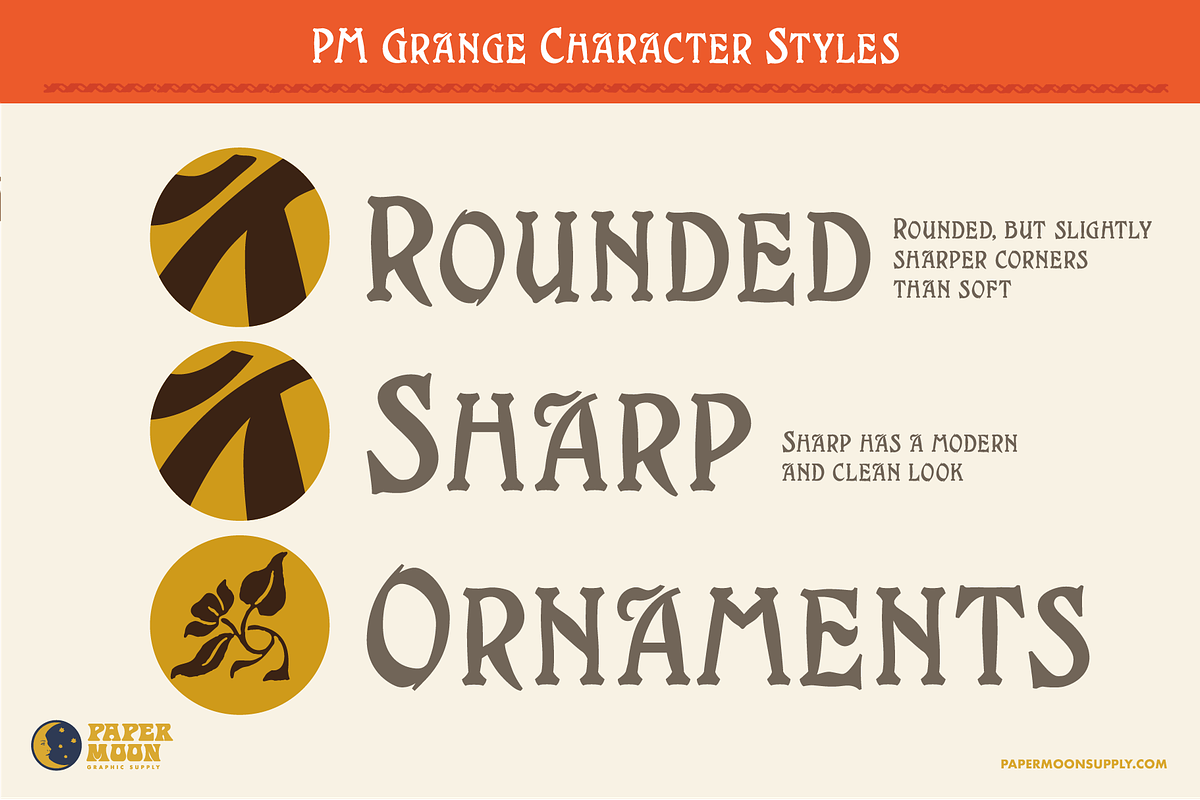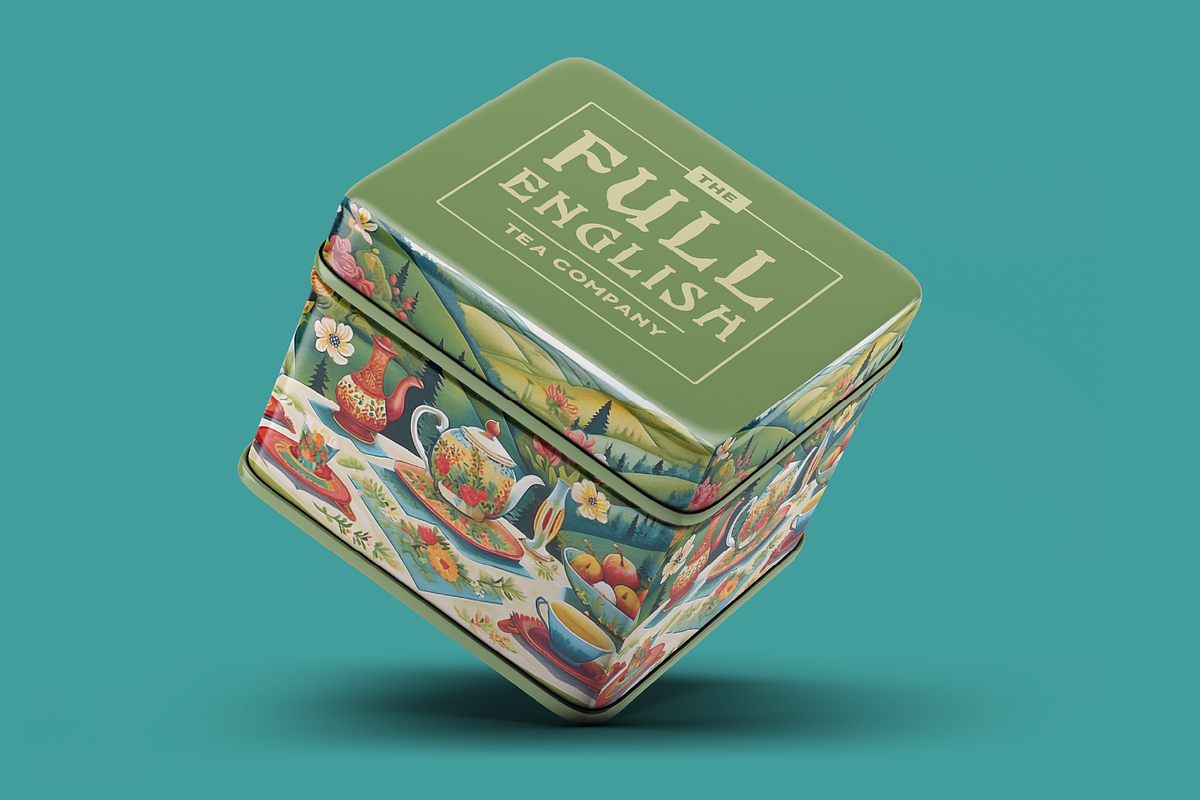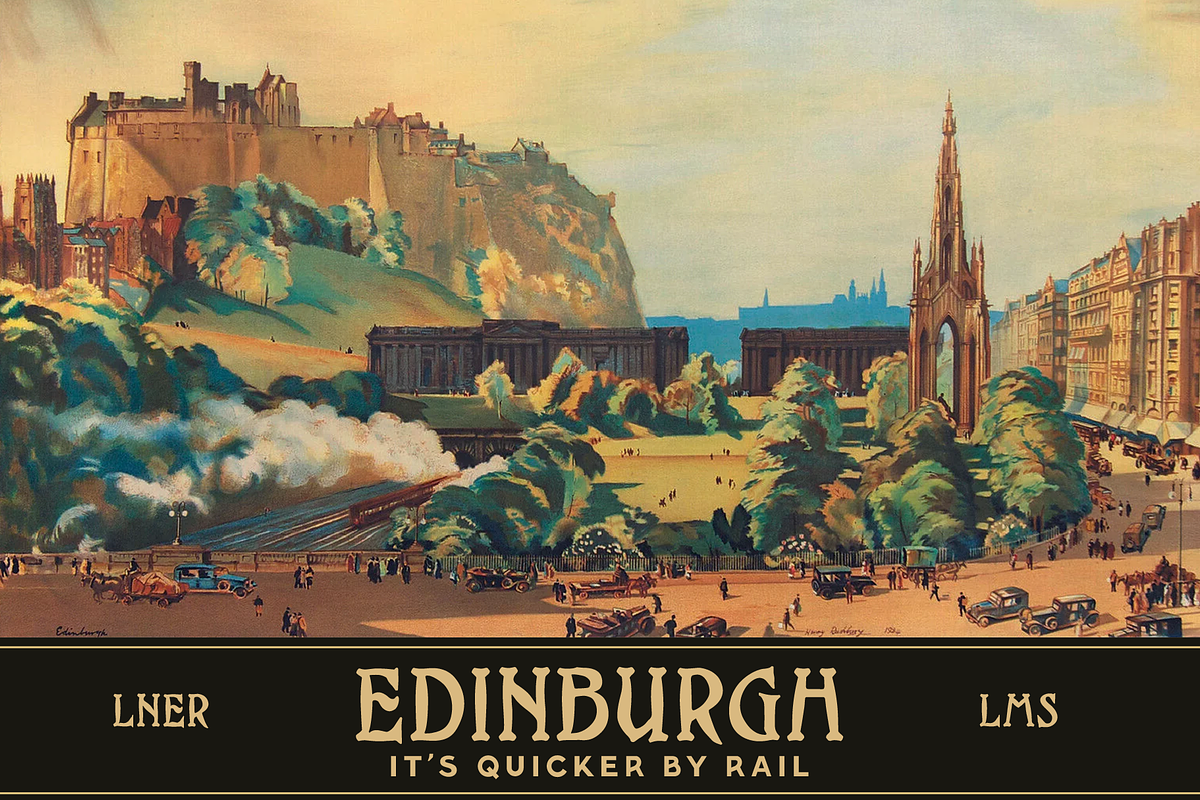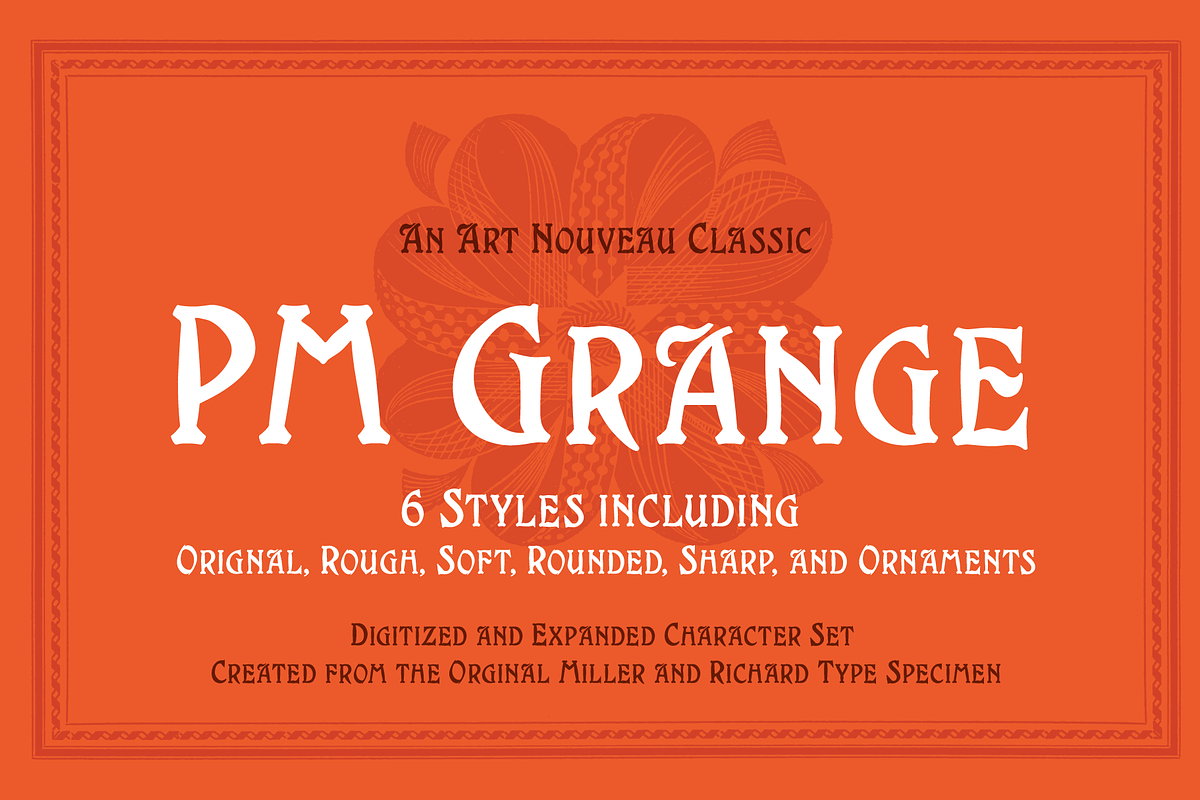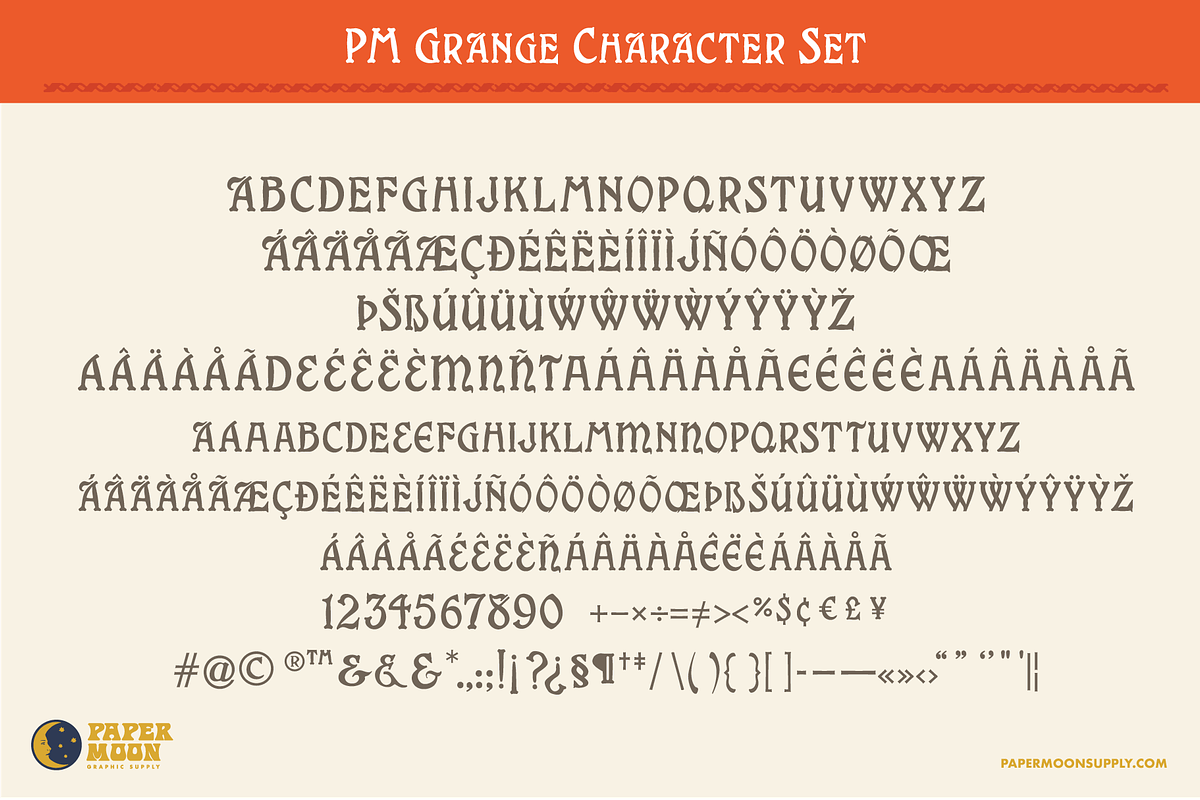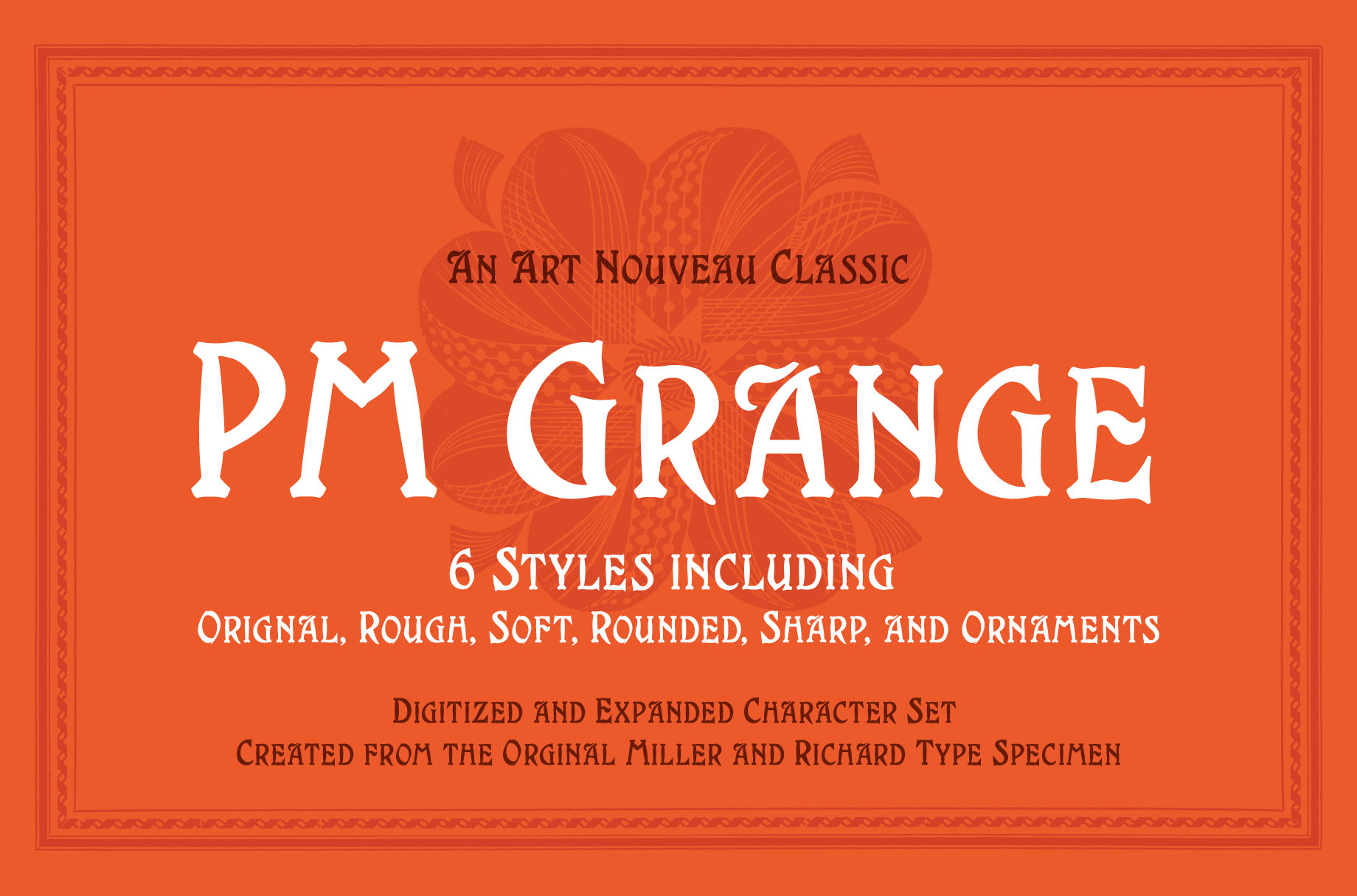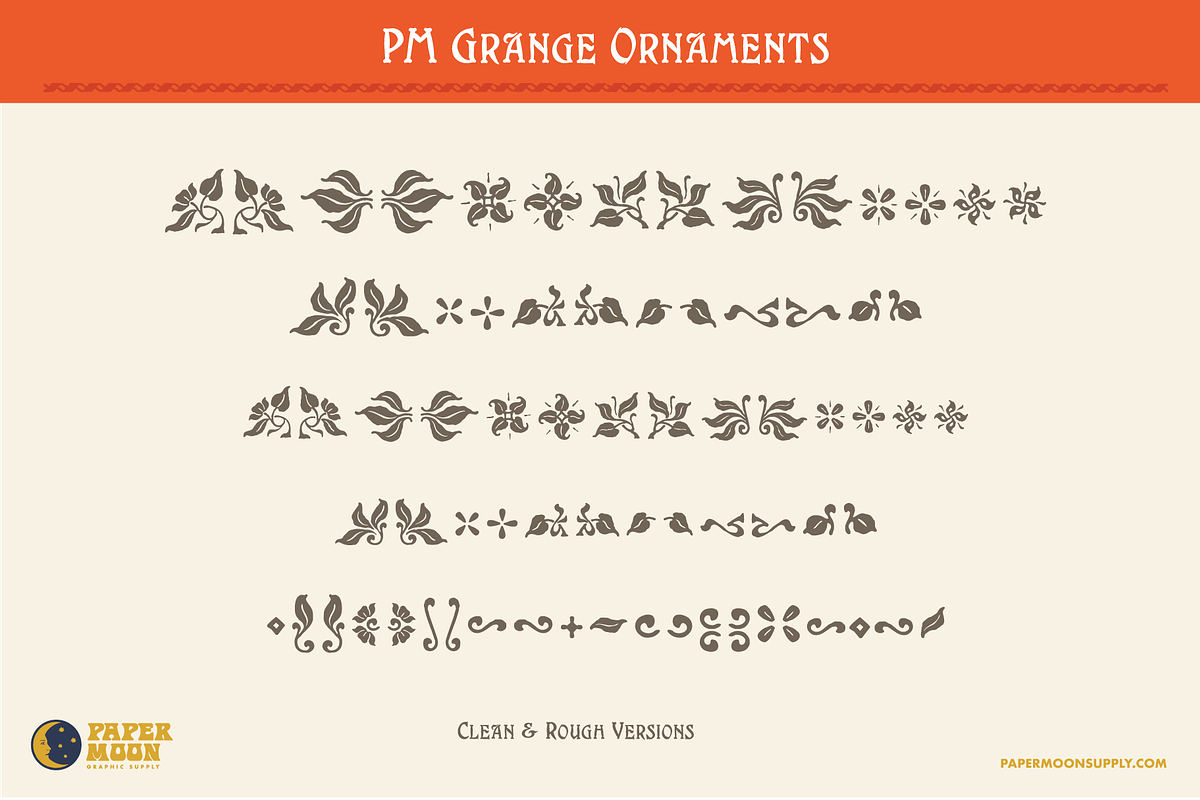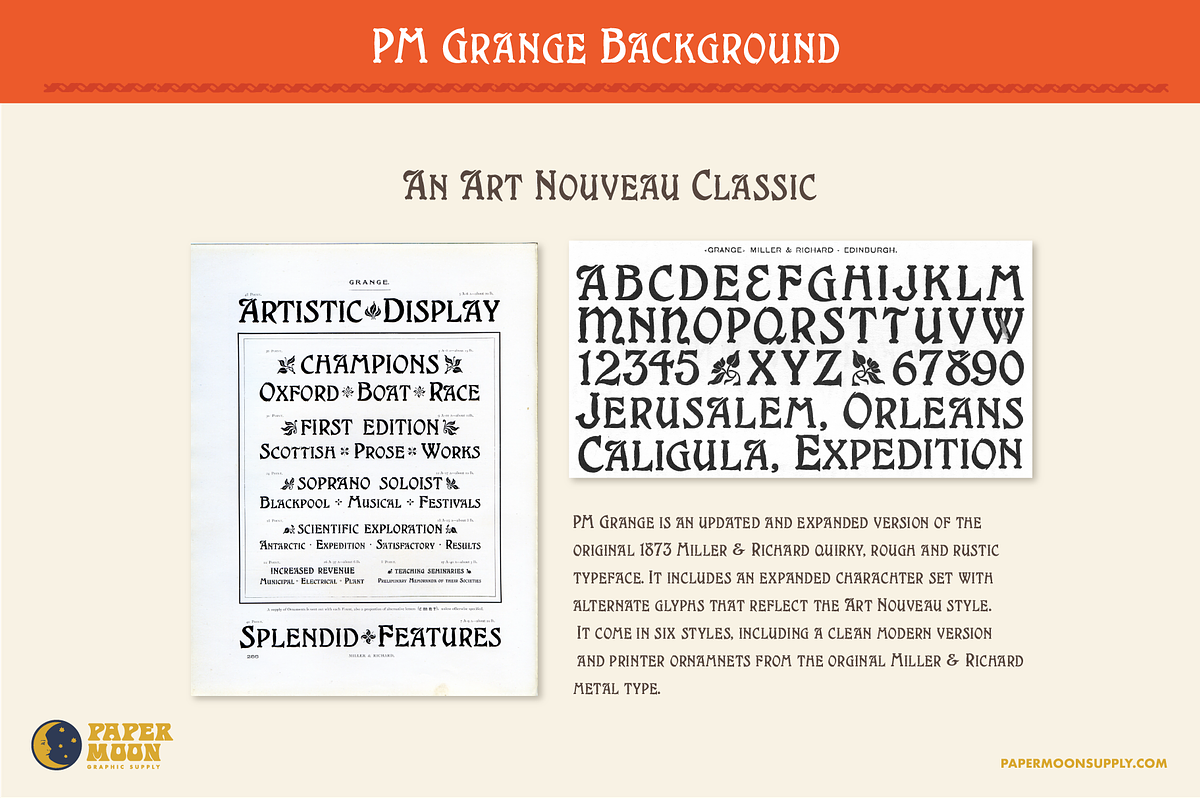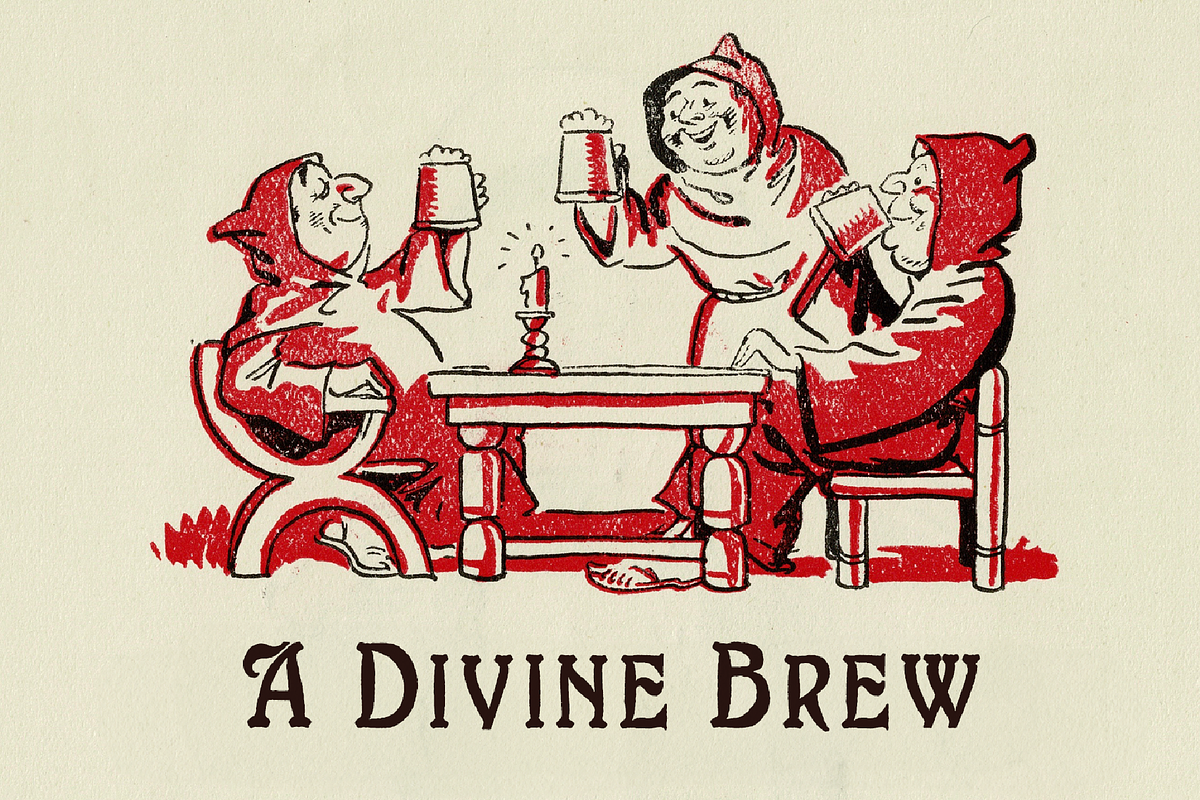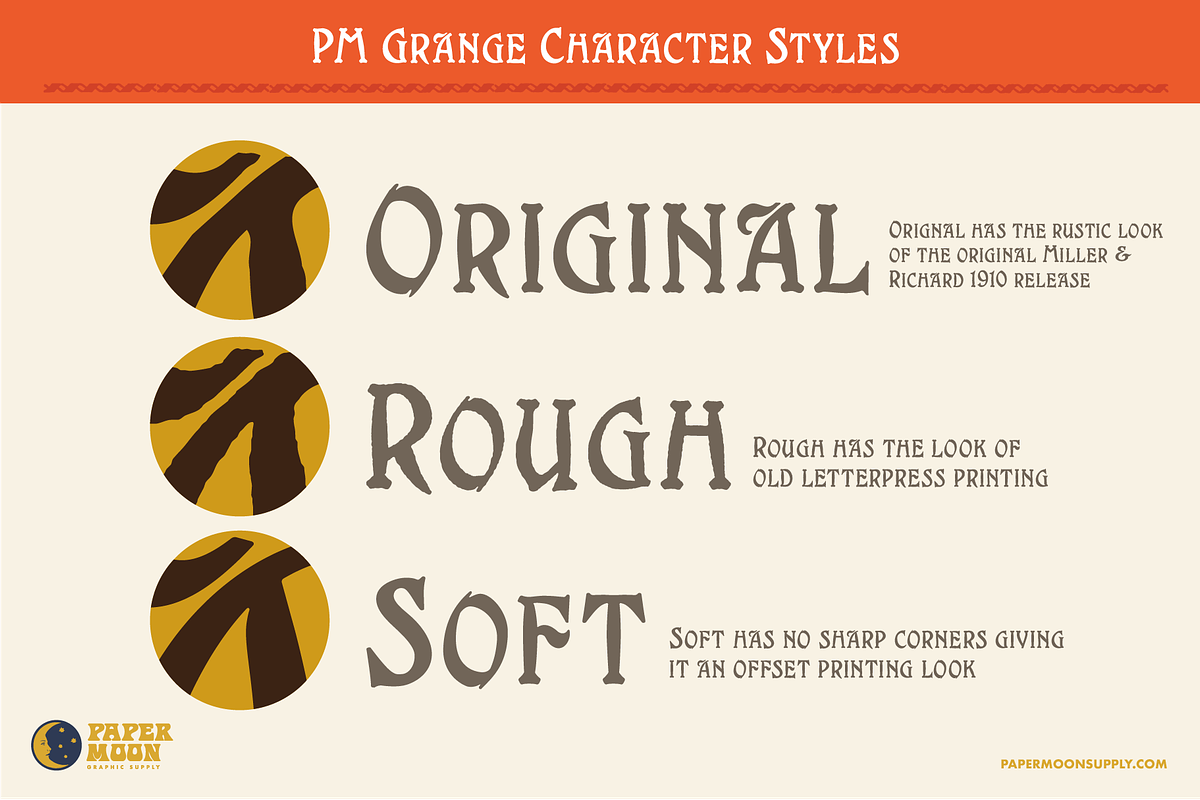
PM Grange Art Nouveau Typeface
PM Grange is a revival Art Nouveau typeface from Paper Moon Graphic Supply
PM Grange is a revival of the original Miller & Richard Victorian typeface released in 1873. The original 1873 typeface included only one uppercase style with unique rough edges. Our new release includes the original rough edge version and its accompanying ornaments, as well as a clean version. We have also added small caps for the lowercase letters and added all of the missing glyphs that were not part of its original release.
- Six styles including a new version with clean (non-distresses) edges
- Expanded character set with alternate and missing glyphs
- Rough and Clean type ornaments
- Opentype stylistic alternates digitized from the original Miller & Richard type specimen
- New small caps for lower-case letters
PM Grange was developed by award-winning illustrator and designer Scott Banks.